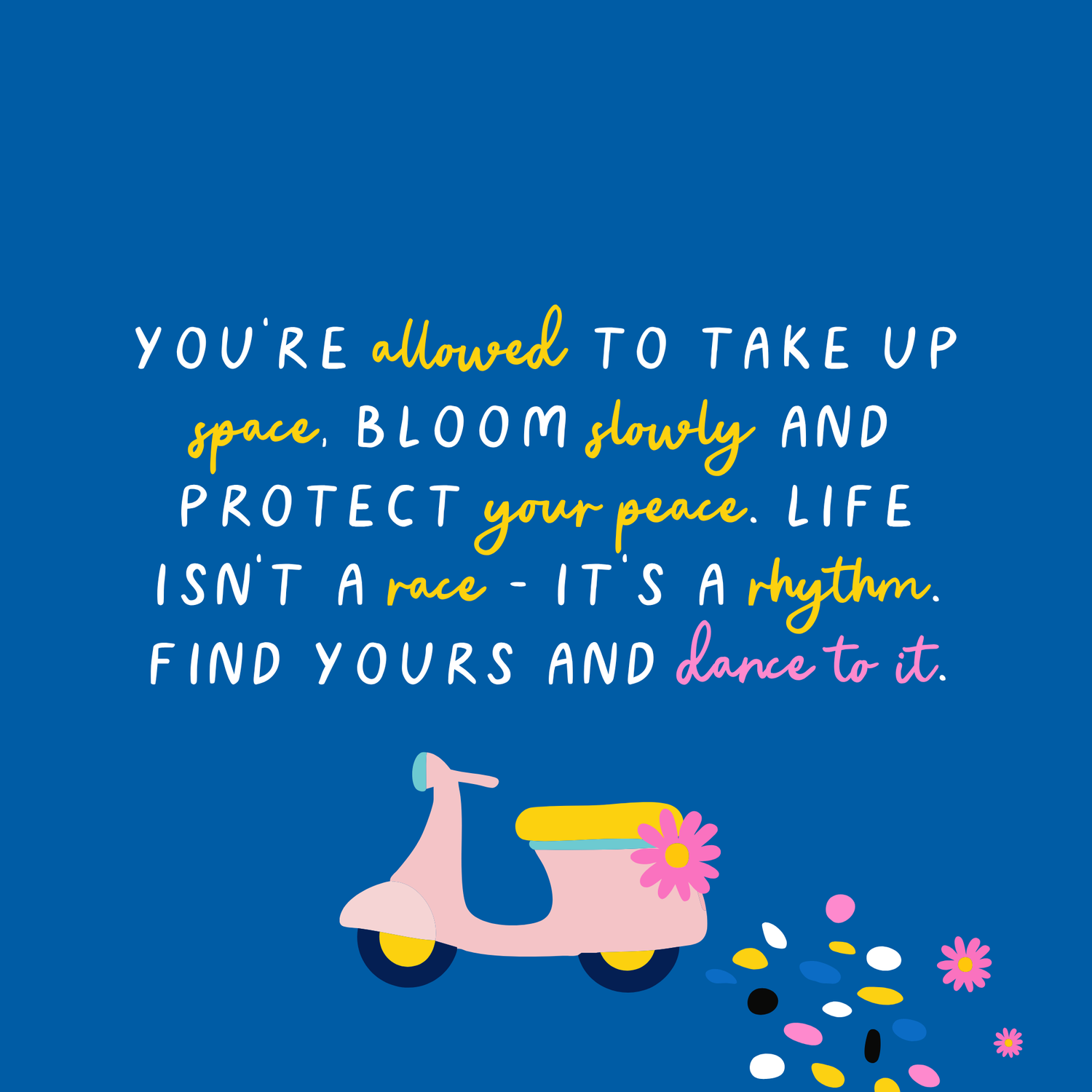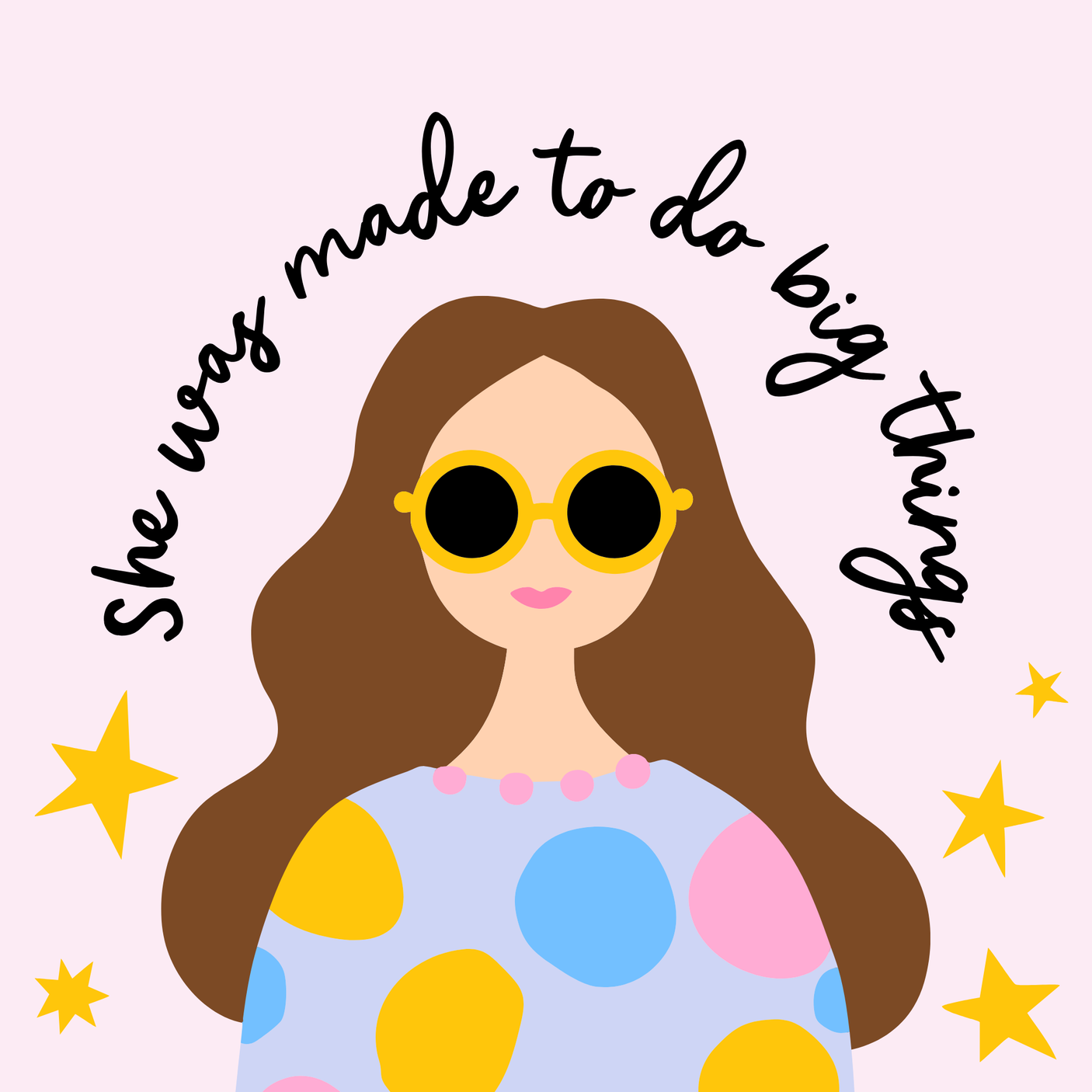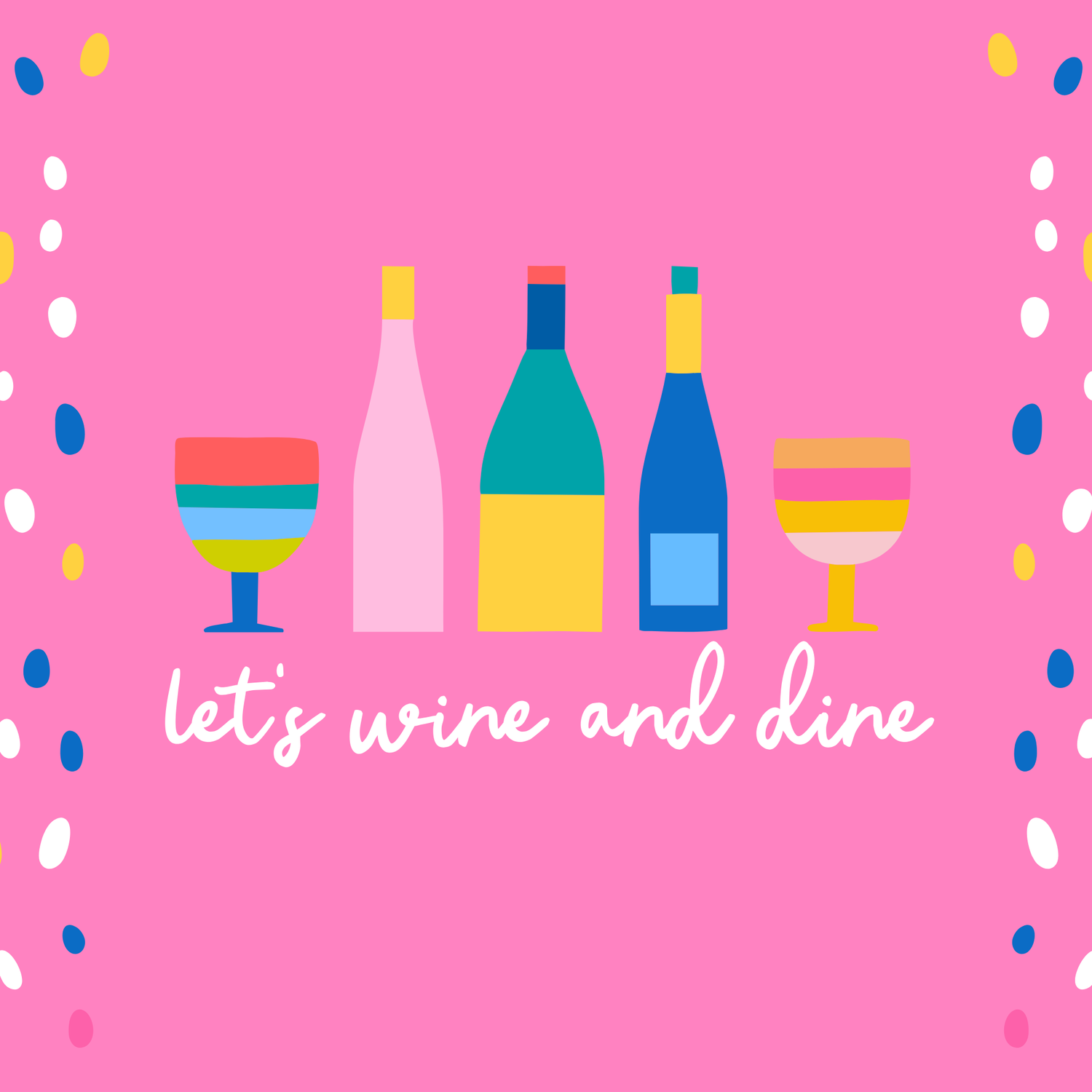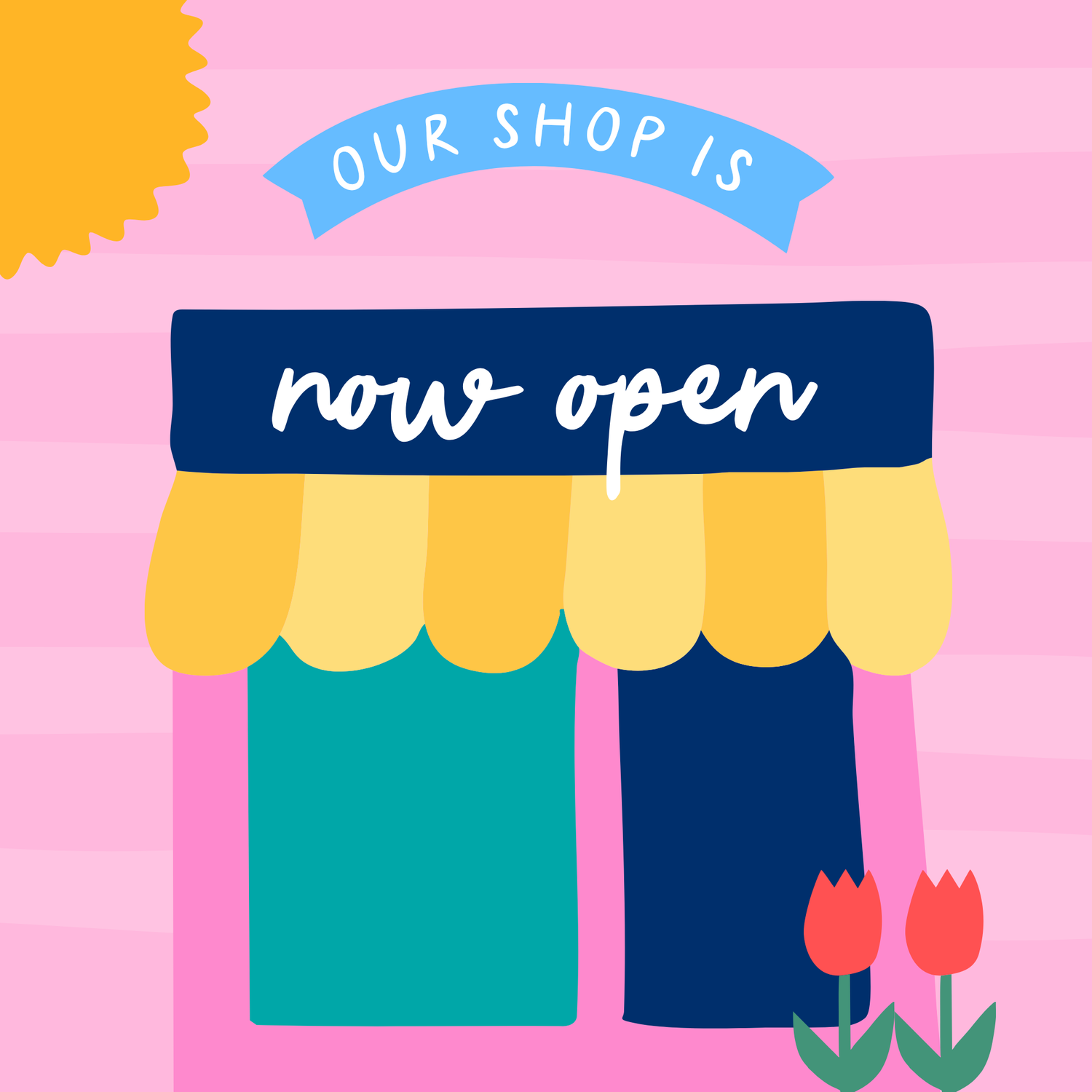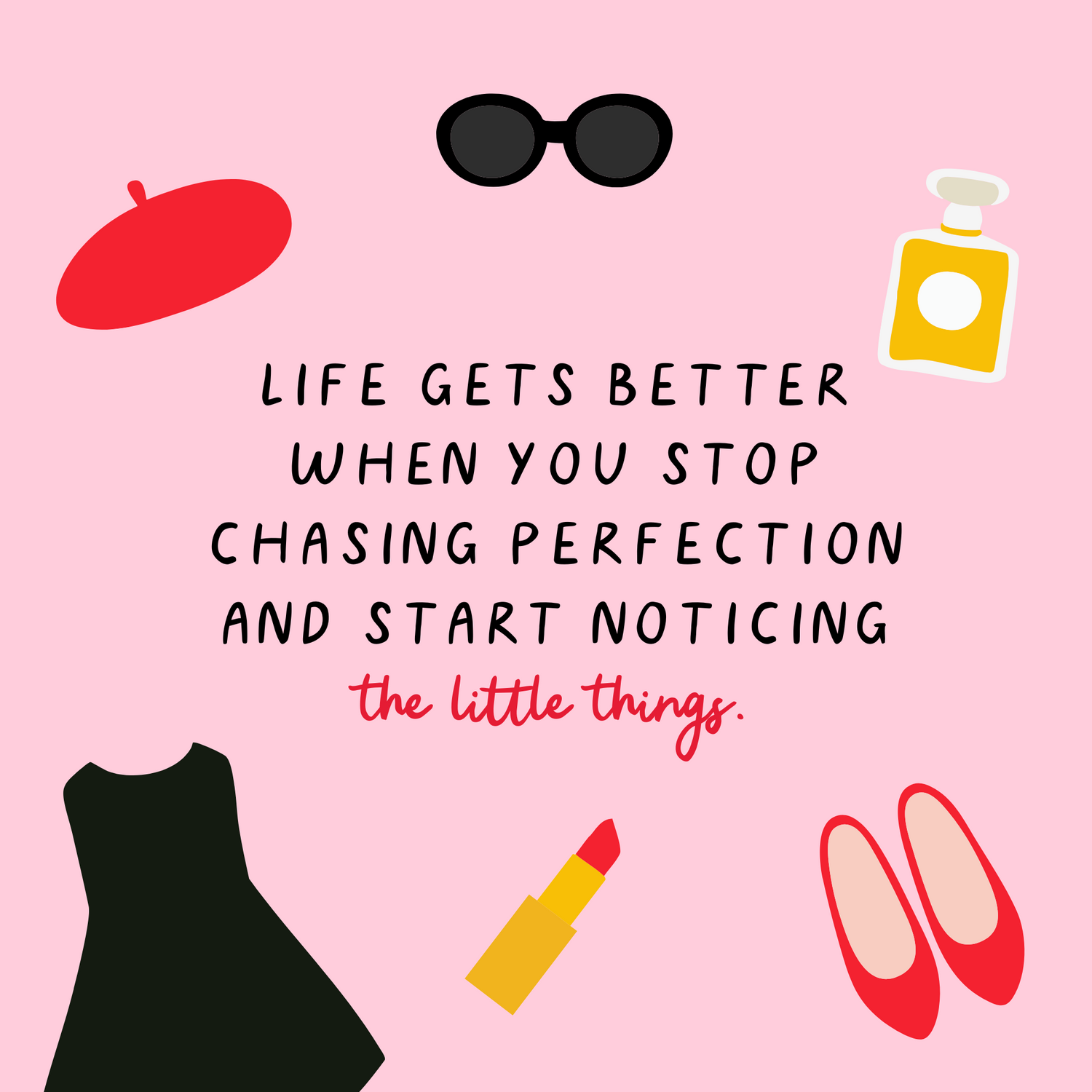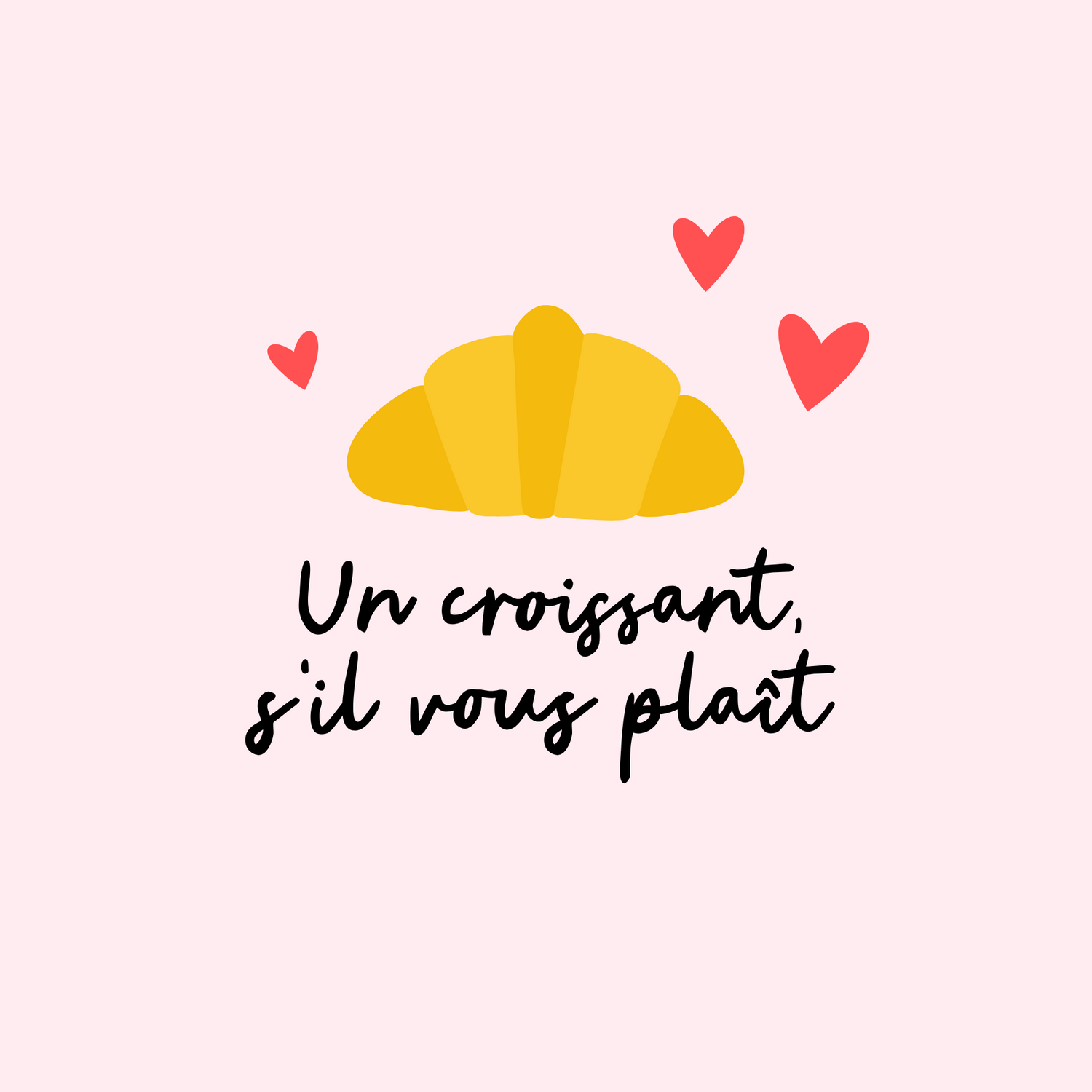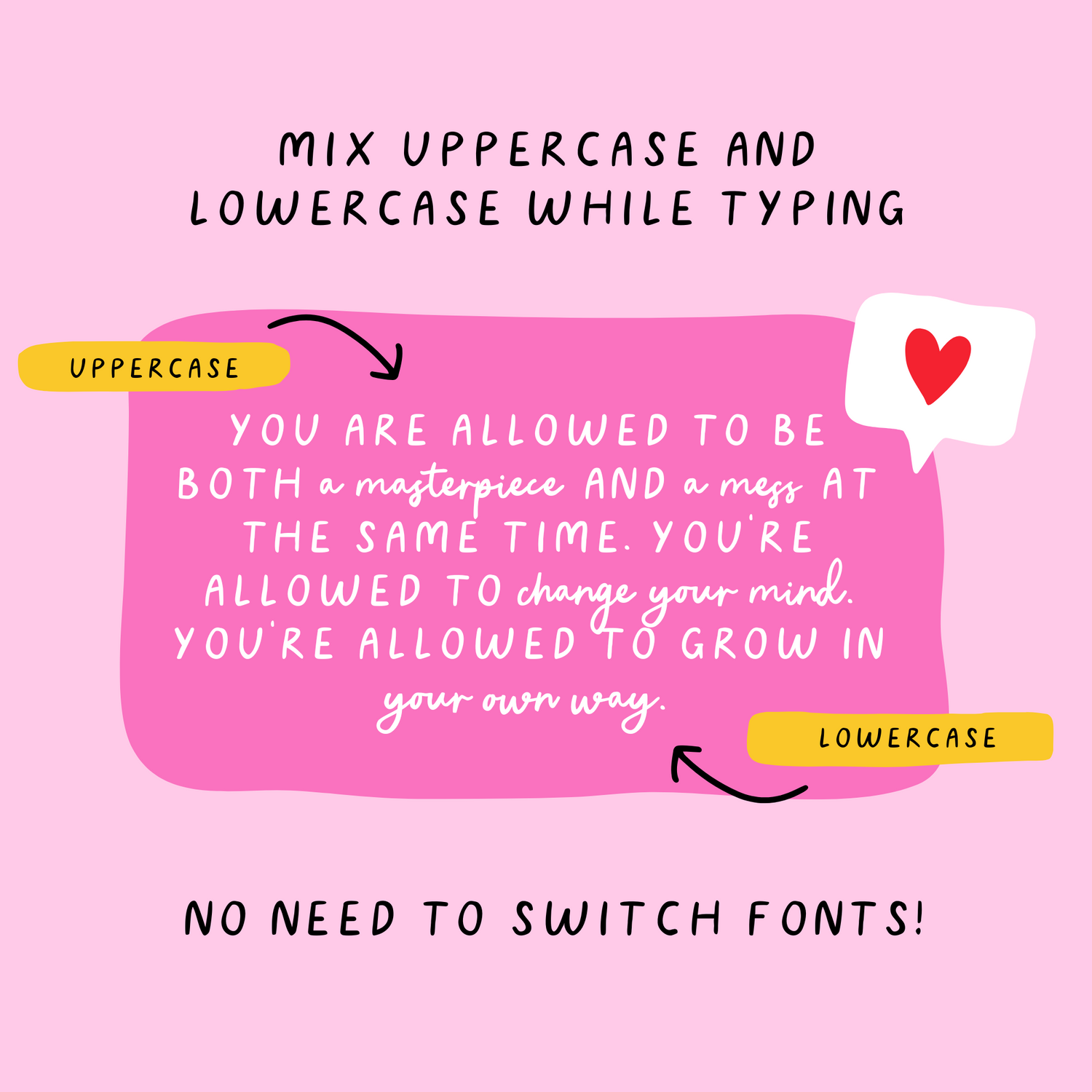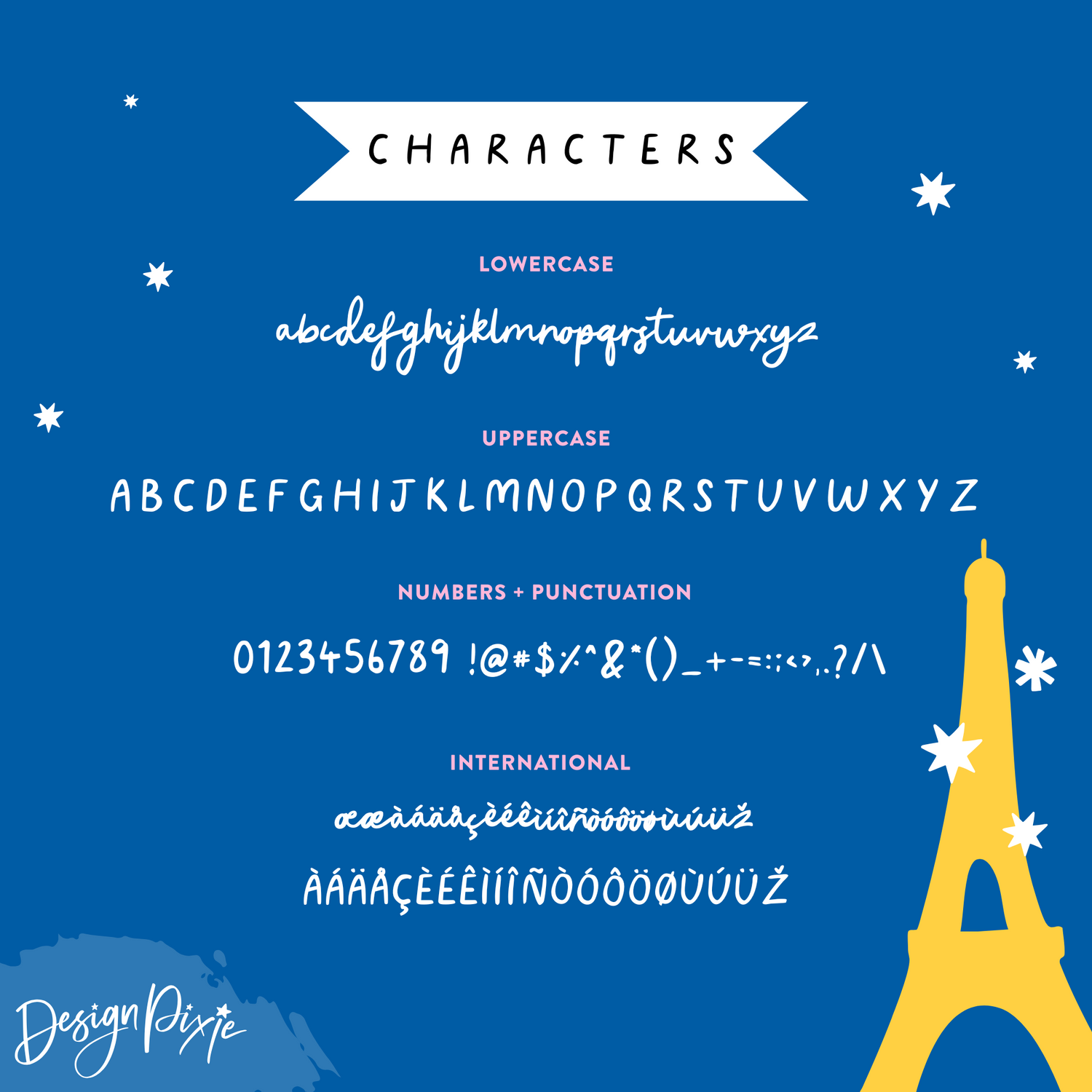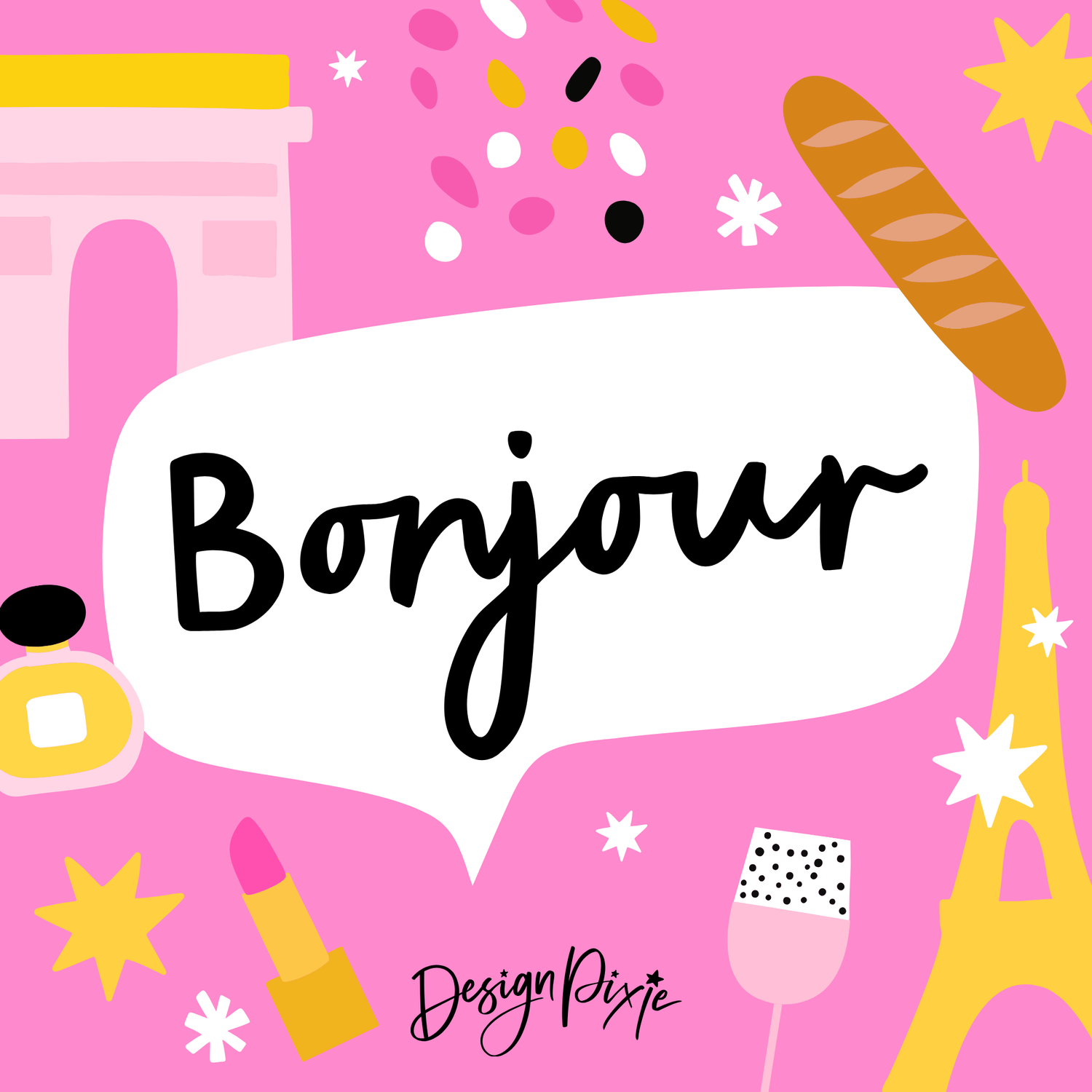
Bonjour Font
Bonjour font is a playful yet expressive handwritten font that gives you two distinct lettering styles in one. The lowercase characters are an inky, slightly messy script that feels authentic and full of personality, while the uppercase set features spaced-out, marker-style lettering that adds bold contrast and emphasis. Switch between the two to create eye-catching quotes, dreamy branding, and scroll-stopping social posts that feel both handwritten and polished.
Whether you're designing logos, Instagram graphics, stickers, or packaging, Bonjour makes it easy to create that hand-lettered look without needing two separate fonts. It’s a perfectly imperfect font combination that works beautifully as a font pair for headings and body text or to highlight keywords in your messaging.